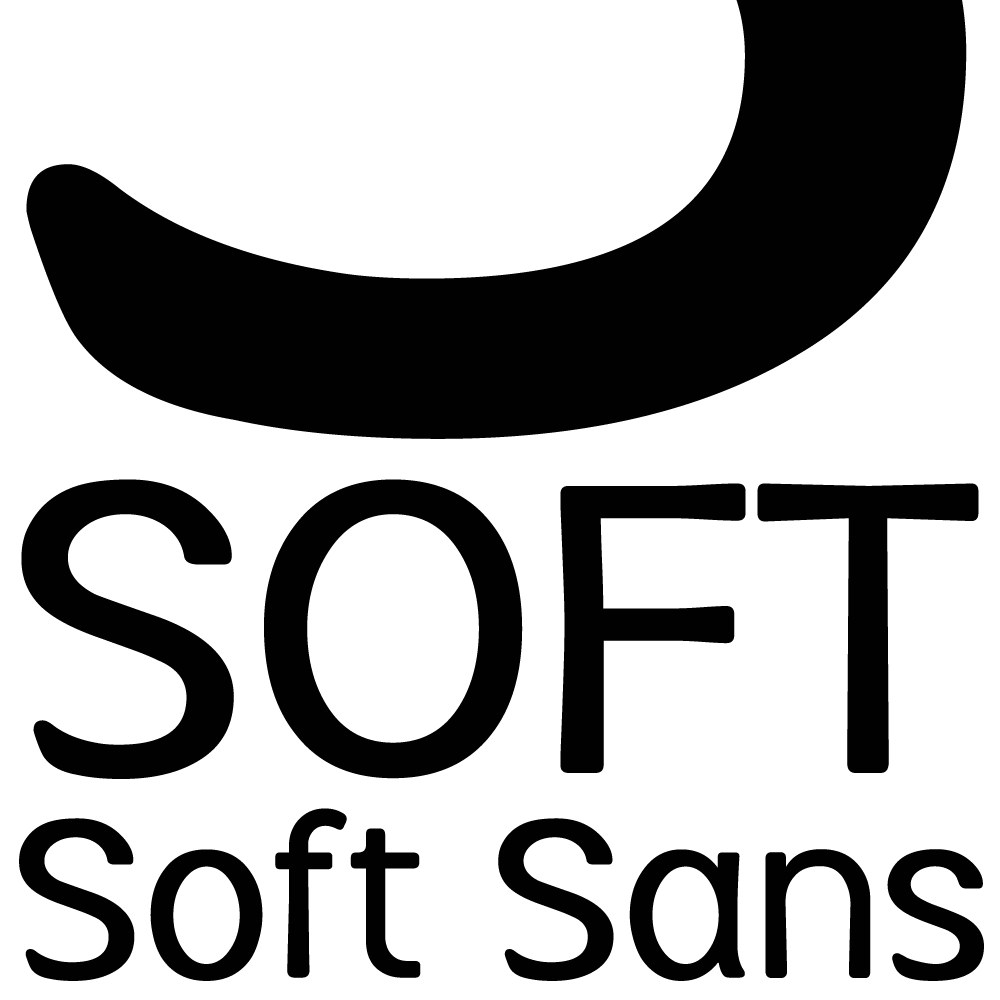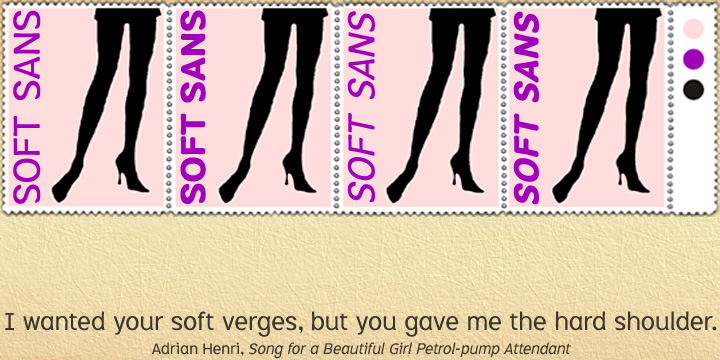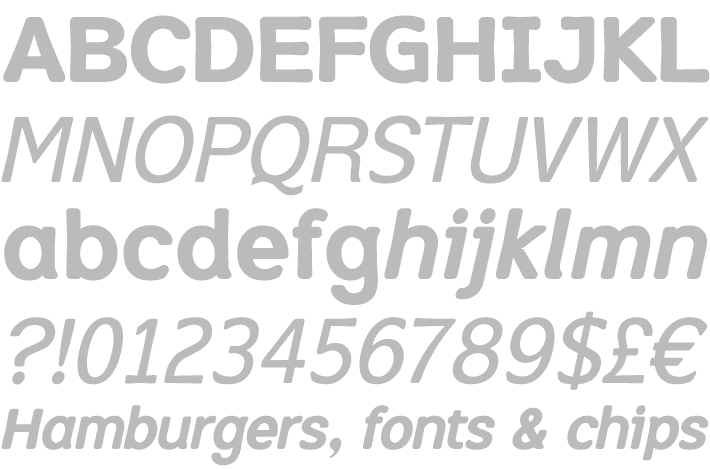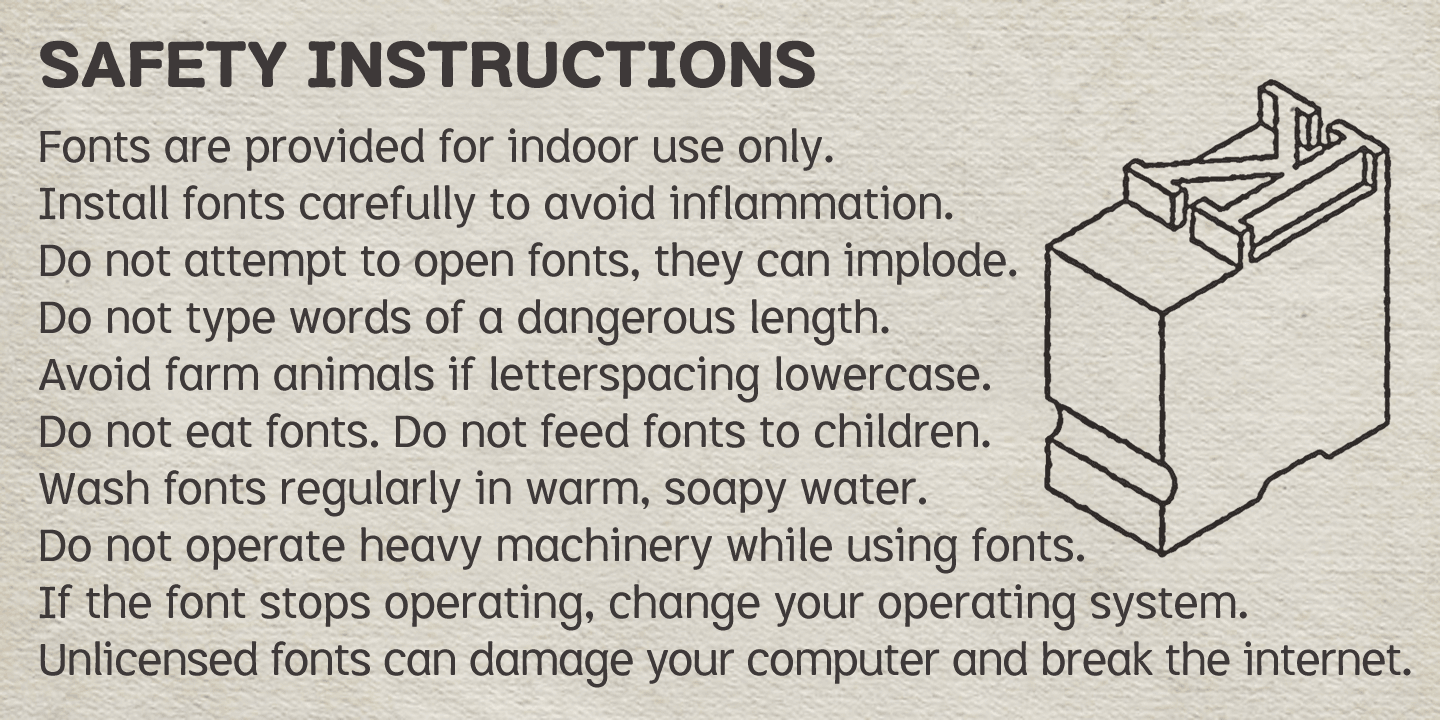
Soft Sans
Soft Sans is a modern sans serif family of fonts, businesslike and classic grotesque in origin, but made friendlier and less austere by the addition of rounded outer corners. Soft Sans is designed for clarity and legibility. The fonts have a healthily large x-height, handwritten forms of a and g, with barred uppercase i and curved foot on the lowercase L. The Soft Sans package includes Regular, Bold, Italic and Bold Italic.